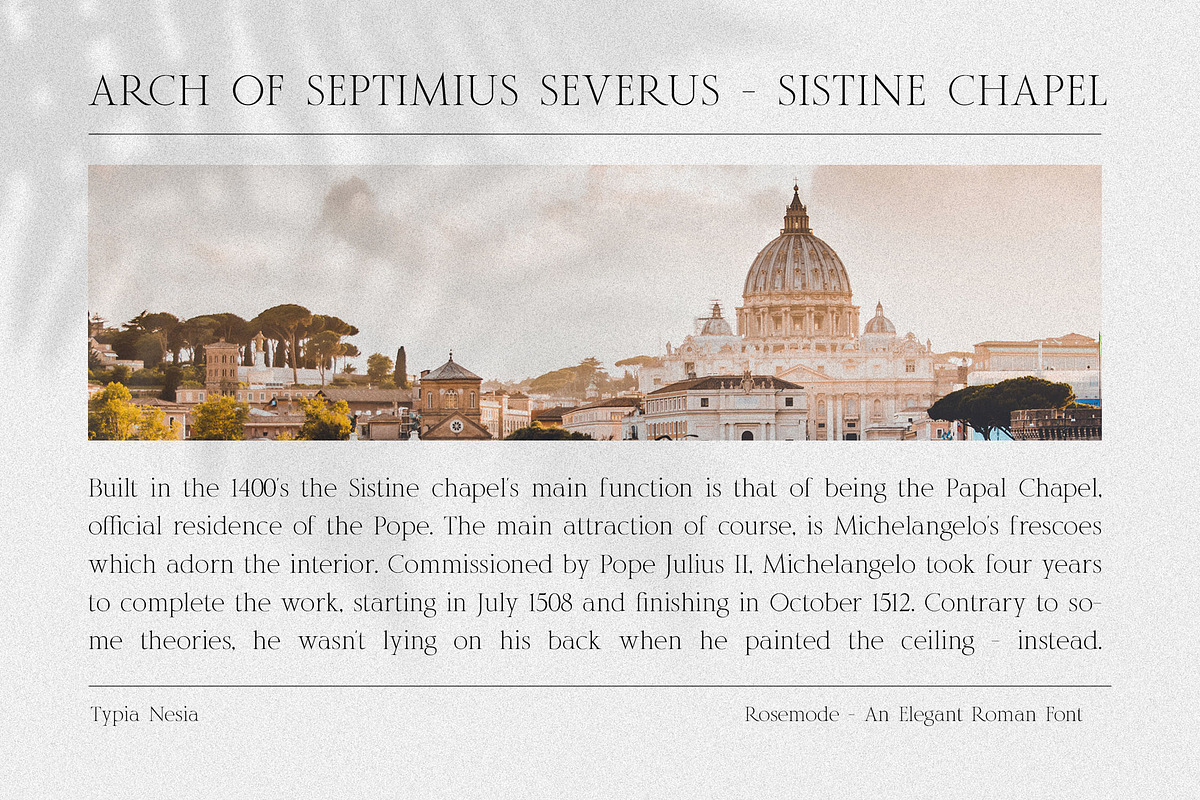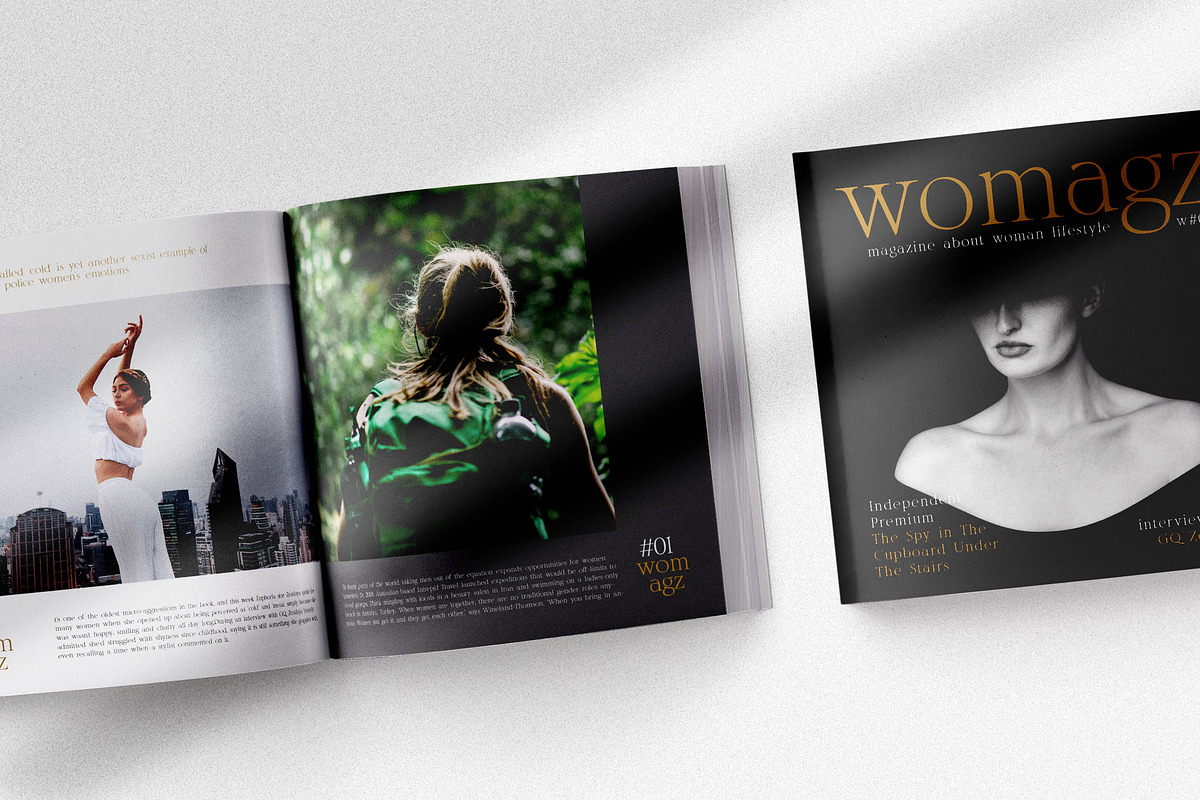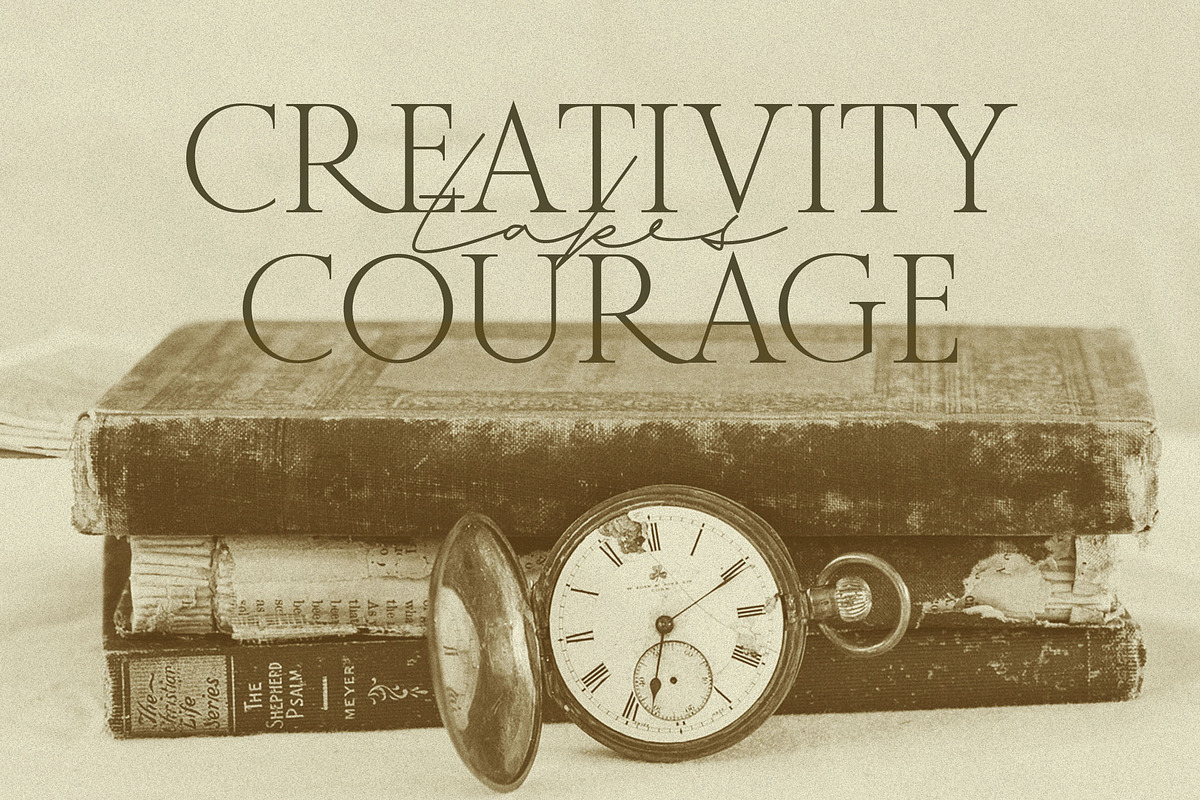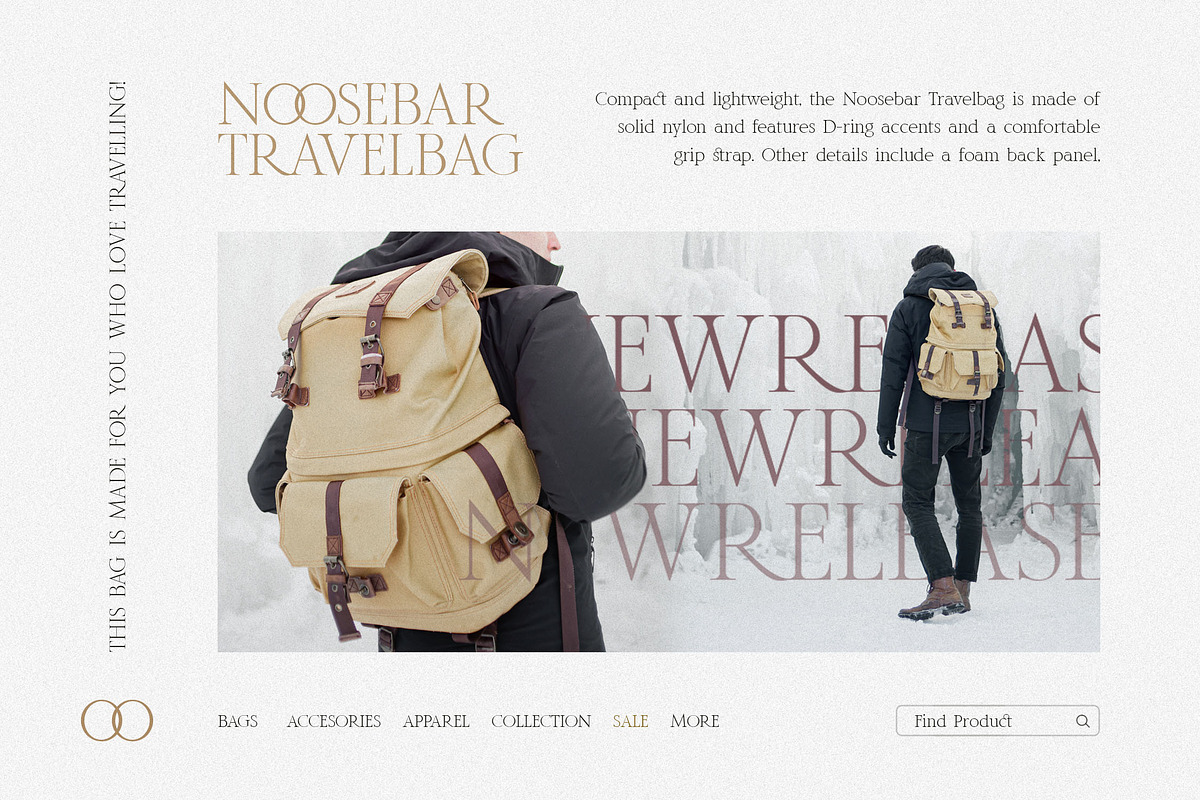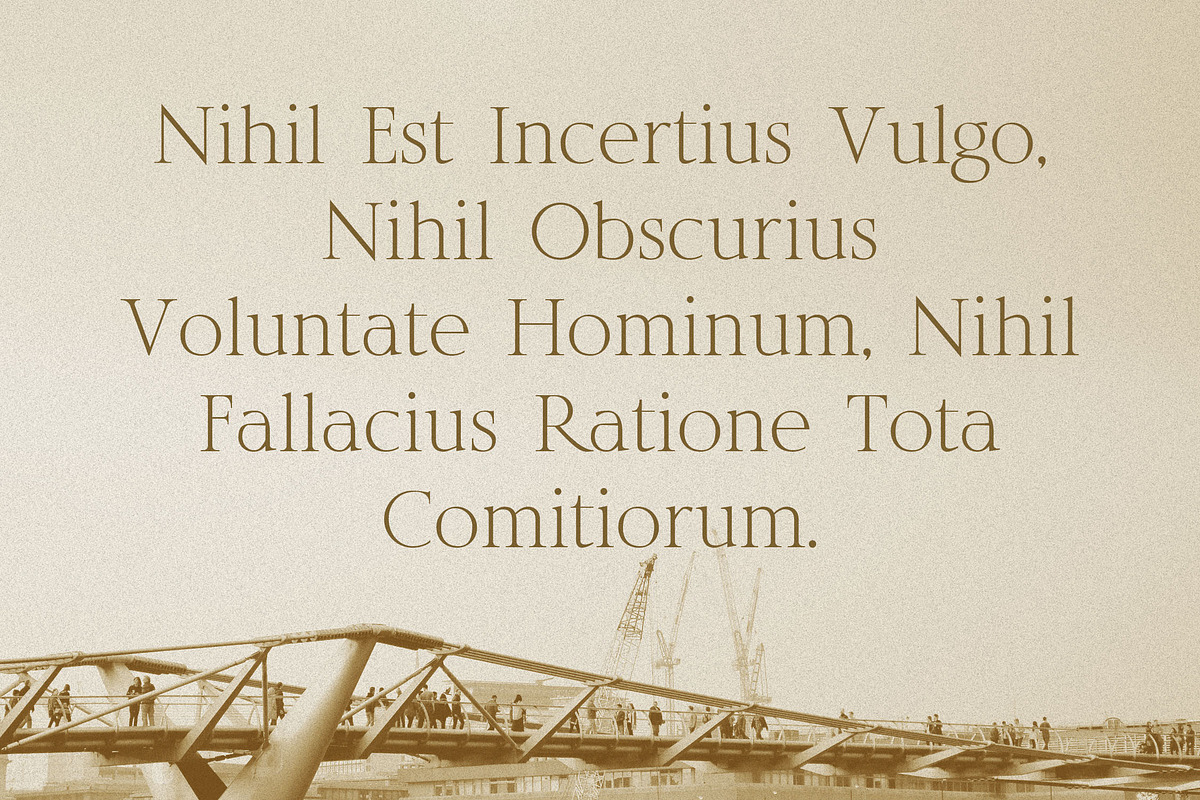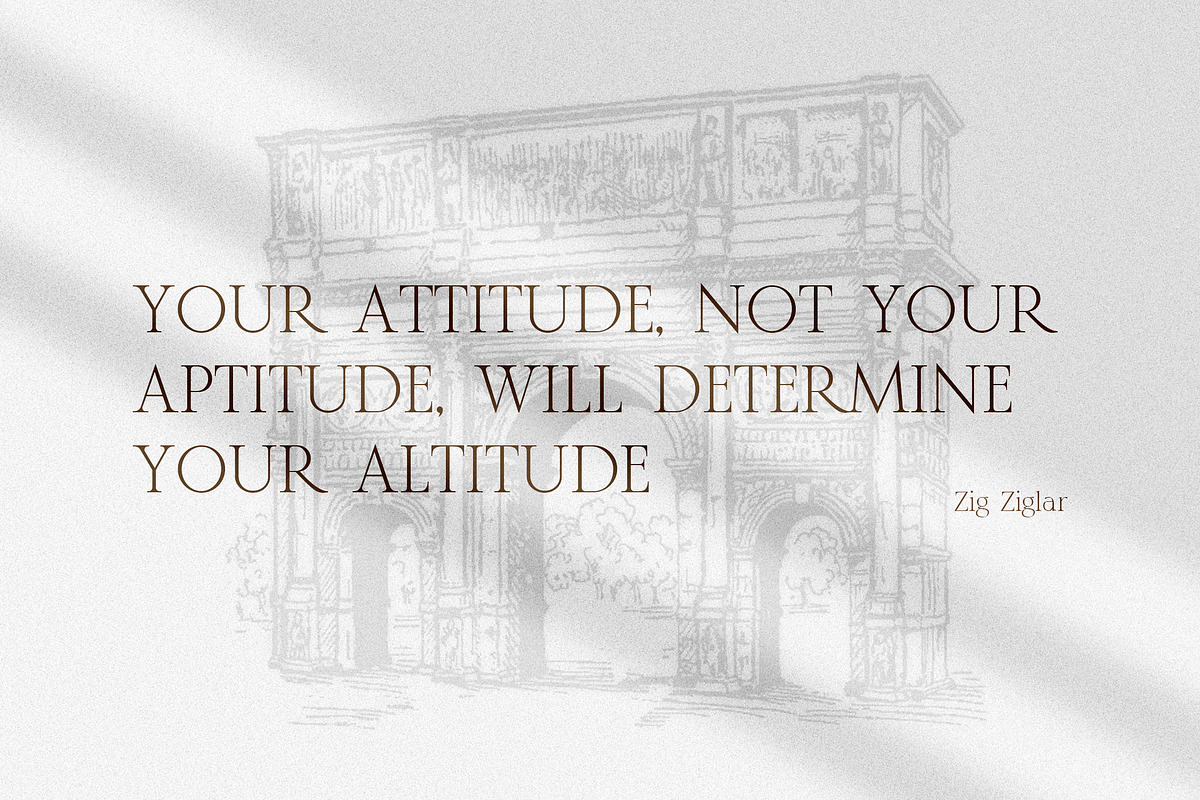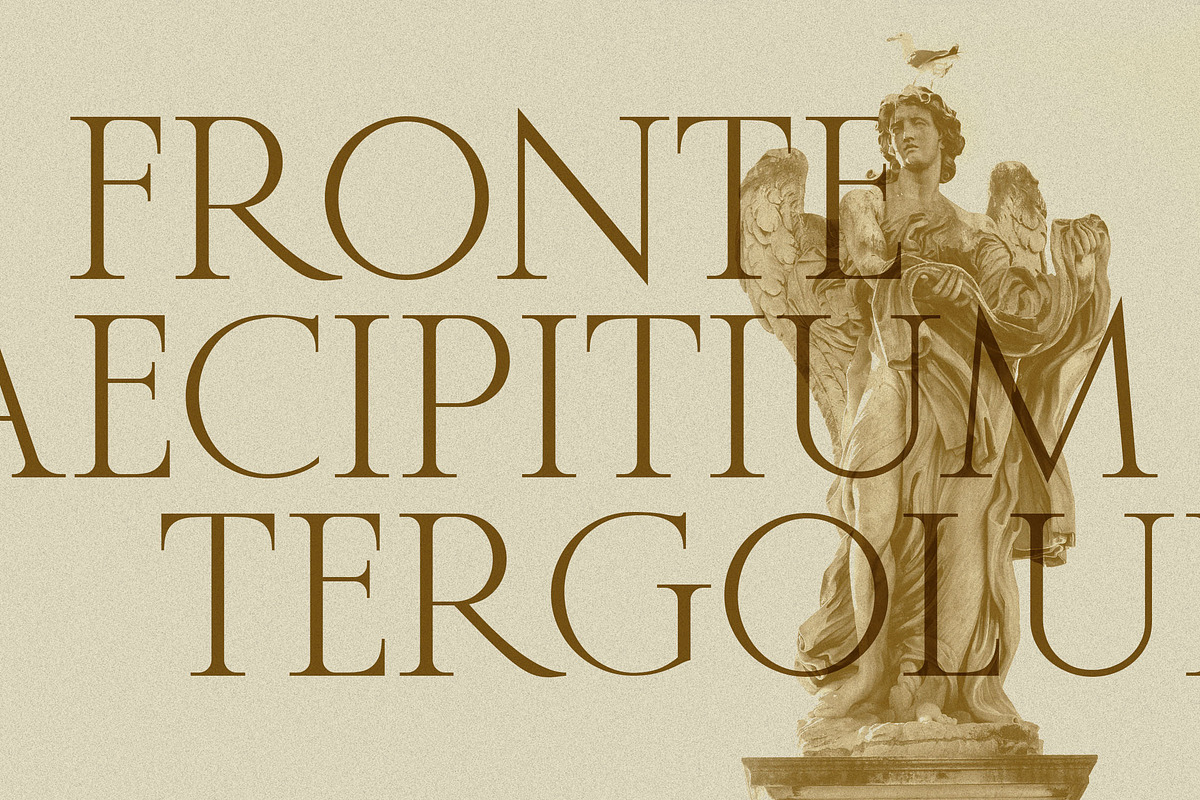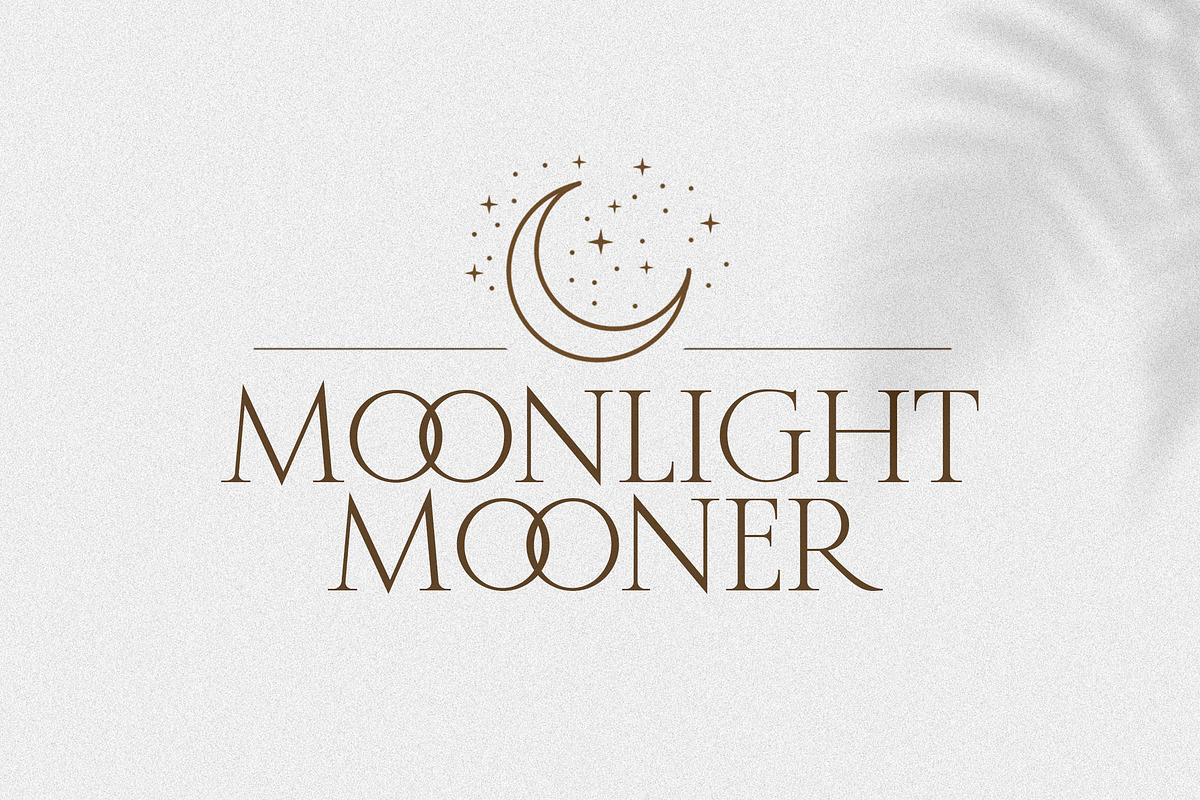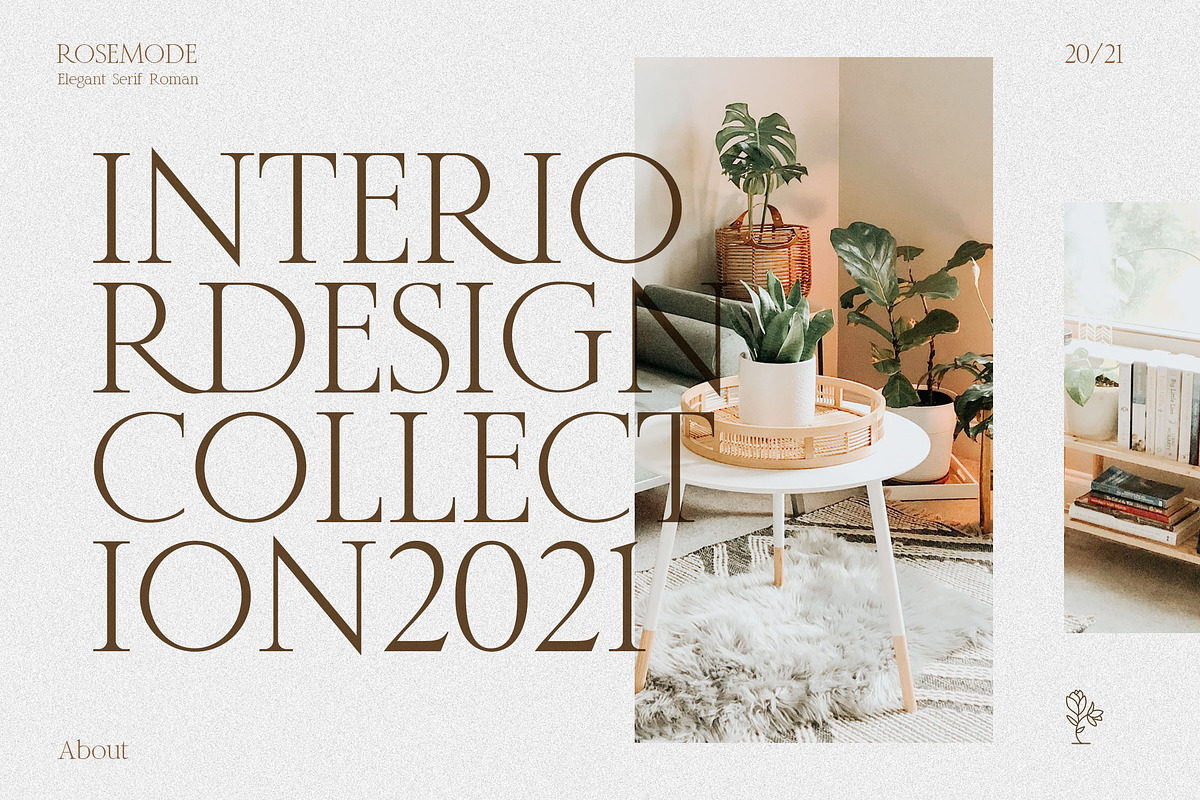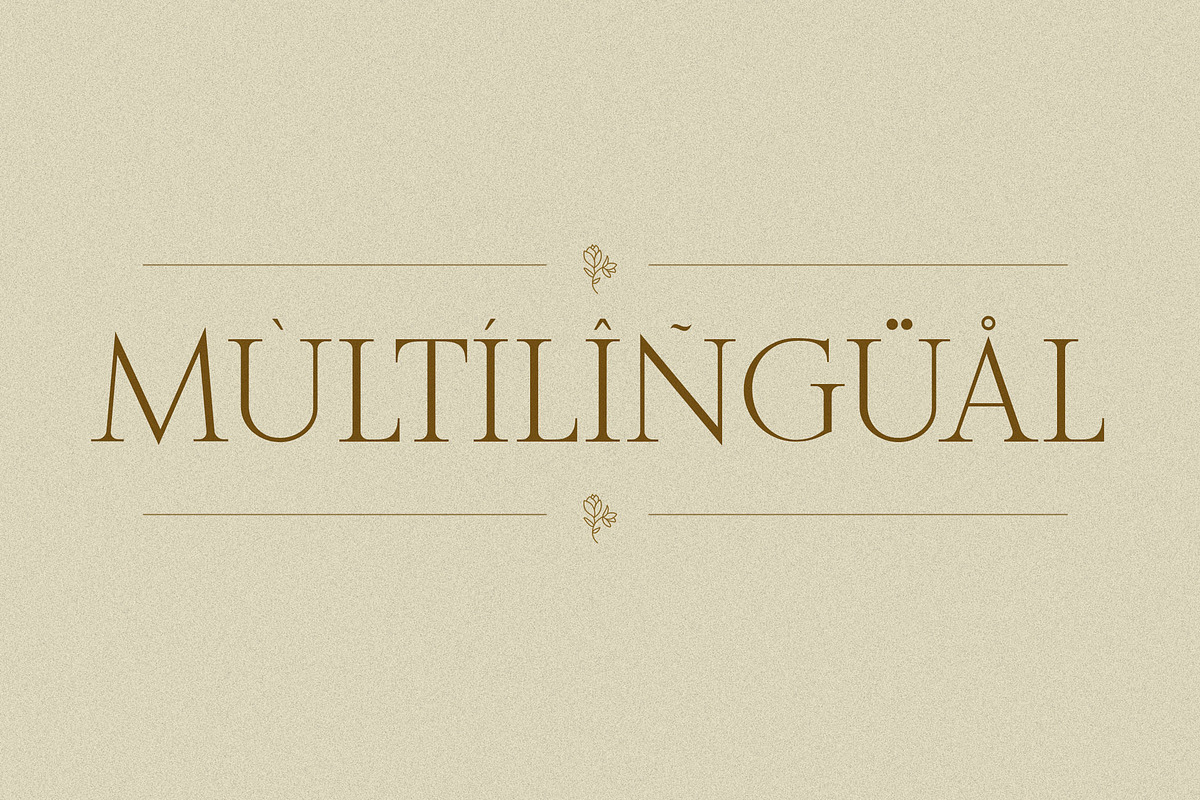
Rosemode - Roman Serif
Rosemode - Classic Roman Serif - Elegant Classy Timeless Font - Luxury Garalde Serif font.
Rosemode Elegant Serif font is perfect for your up coming projects. Such as luxury logo and branding, classy editorial design, woman magazine, cosmetic brand, fashion promotional, art gallery branding, museum, historical of architectural, boutique branding, stationery design, blog design, modern advertising design, card invitation, art quote, home decor, book/cover title, special events and any more.